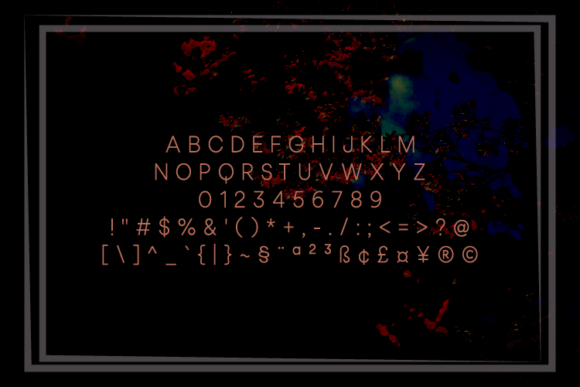
Introducing Grilesthy Light Font: The Ultimate Modern and Casual Typeface
Are you tired of using the same old fonts for your designs? Look no further! Grilesthy Light Font is here to revolutionize your typography with its modern, casual, and incredibly friendly feel. This fantastic sans serif font is perfect for designers and crafters who want to add a touch of personality to their projects.
What Makes Grilesthy Light Font Special?
Grilesthy Light Font is a versatile typeface that is best suited for headlines of all sizes, as well as for blocks of text that have both maximum and minimum variations. Its clean and simple design makes it easy to read, while its friendly feel adds a touch of approachability to your designs. Whether you’re working on a logo, brochure, or website, Grilesthy Light Font is the perfect choice.
10 Different Weights to Suit Your Design Needs
One of the standout features of Grilesthy Light Font is its range of weights. With 10 different weights to choose from, ranging from thin to extra black versions, you can select the perfect weight to suit your design or project. This means you can use Grilesthy Light Font for a wide range of applications, from subtle and elegant designs to bold and dramatic ones.
Why Choose Grilesthy Light Font?
So, why should you choose Grilesthy Light Font for your next design project? Here are just a few reasons:
- Modern and casual feel: Grilesthy Light Font has a fresh and contemporary feel that’s perfect for designers who want to create modern and stylish designs.
- Incredibly friendly: The font’s friendly feel makes it perfect for designs that need to be approachable and engaging.
- Versatile: With 10 different weights to choose from, Grilesthy Light Font can be used for a wide range of design applications.
- Easily readable: The font’s clean and simple design makes it easy to read, even at small sizes.
How to Use Grilesthy Light Font in Your Designs
Using Grilesthy Light Font in your designs is easy. Here are a few tips to get you started:
- Pair it with other fonts: Grilesthy Light Font pairs well with other sans serif fonts, as well as script fonts. Experiment with different combinations to find the perfect pairing for your design.
- Use it for headlines and body text: Grilesthy Light Font is perfect for both headlines and body text. Use the lighter weights for body text and the bolder weights for headlines.
- Experiment with different weights: Don’t be afraid to experiment with different weights to find the perfect one for your design. You can use the thinner weights for subtle designs and the bolder weights for more dramatic ones.
Grilesthy Light Font is a modern and casual font that’s perfect for designers and crafters who want to add a touch of personality to their designs. With its incredibly friendly feel, versatile range of weights, and easily readable design, Grilesthy Light Font is the perfect choice for a wide range of design applications. So why not give it a try and see how it can elevate your designs?
- Font style: Sans serif
- Weights: 10 different weights, ranging from thin to extra black
- Use cases: Headlines, body text, logos, brochures, websites, and more